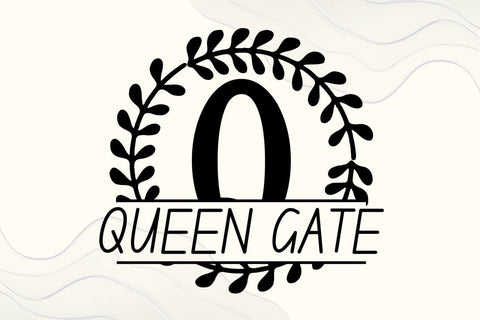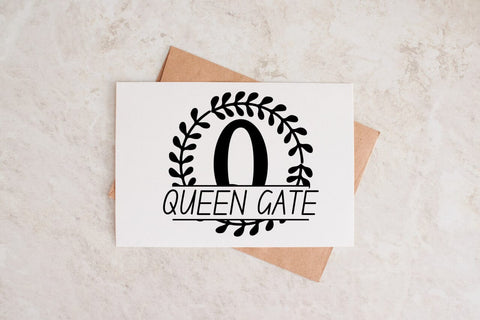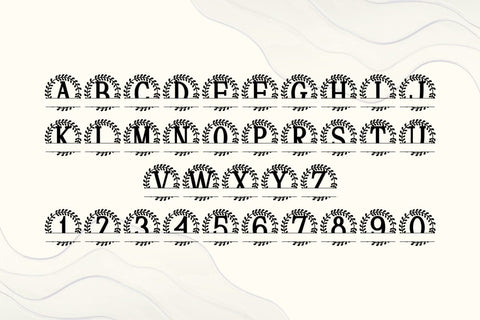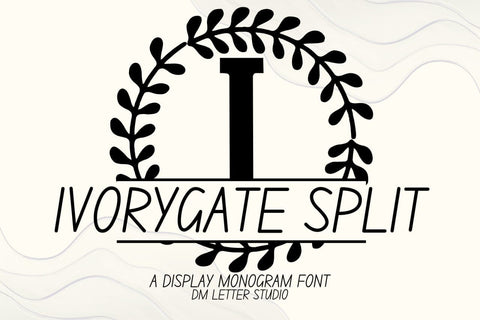
Ivorygate Split Monogram Font
Meet Ivorygate Split Monogram Font
Ivorygate Split Monogram Font turns any initial into a refined, name-ready emblem in seconds. Calm, confident letterforms carry a luxurious feel, while a precise horizontal split creates natural space for names, dates, or short words. Because spacing stays even and counters remain open, designs look polished on tiny tags, door hangers, tumblers, ornaments, menus, and wall art. Pair it with a clean sans or a light script and every layout stays readable and premium.
Where this split monogram font shines
Set one hero initial, then place the family name inside the split for instant personalization. Try couple names for engagement gifts, venue names for signage, or short words like Home, Welcome, and Love for seasonal décor. Since the proportions favor clarity, files scale smoothly for Cricut, Silhouette, Glowforge, and laser projects. As a result, you can batch customization for markets and storefronts with consistent, high-end results.
Design tips for Ivorygate Split Monogram
Keep the hero initial large and let white space breathe. Place the split at center or slightly low for a calm baseline. Choose a simple secondary font inside the split to protect legibility on small items. Because the style is polished and airy, metallic foils, linen textures, and natural woods add instant value. Keep names concise so the composition stays balanced and clear at thumbnail size.
Uppercase alphabet optimized for split monograms
Matching lowercase, numbers, punctuation
Curves tuned for engraving, foil, laser cutting, and clean vinyl paths
Why makers choose this split monogram font
You want fast personalization that still feels bespoke. Ivorygate Split Monogram Font delivers consistent, elegant name designs in minutes while keeping your shop’s visual language cohesive across many product types.